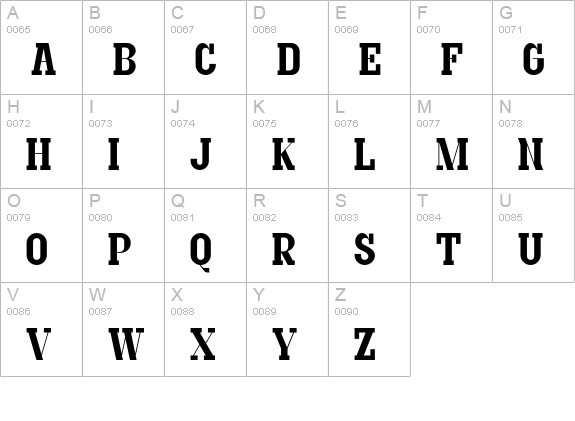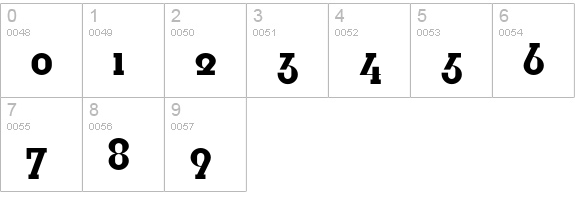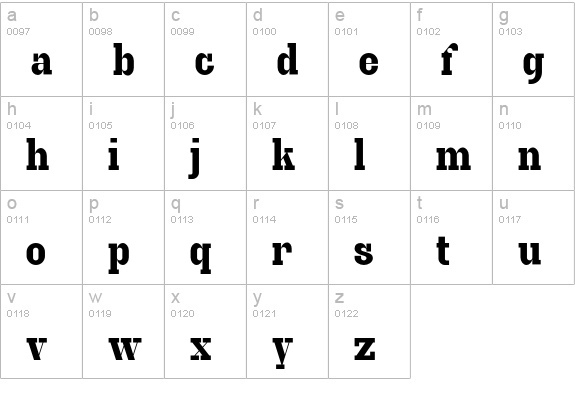
Granite-Alternate Font Details
Granite-Alternate font is a visually appealing typeface that exudes elegance and sophistication. Its sleek lines and modern design make it perfect for a wide range of projects, from branding to editorial design. The alternate characters in this font add a unique touch, allowing for endless creative possibilities. What's even better is that Granite-Alternate font is completely free to download at FontsMarket.com. This means you can elevate your designs without having to worry about breaking the bank. Don't miss out on this fantastic font that combines style and affordability in one package. Download Granite-Alternate today and take your designs to the next level!